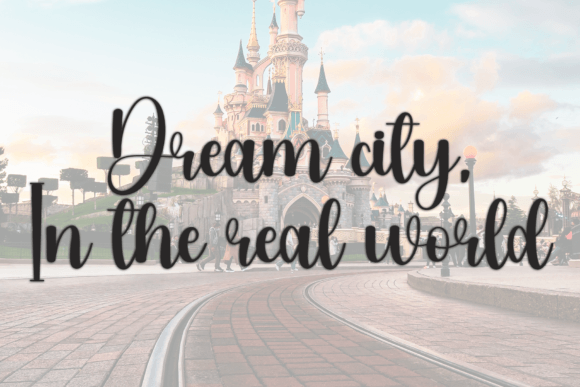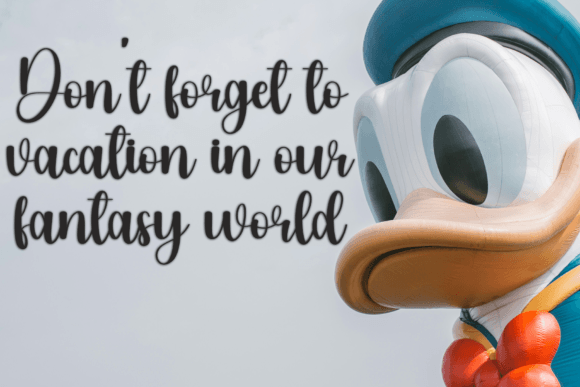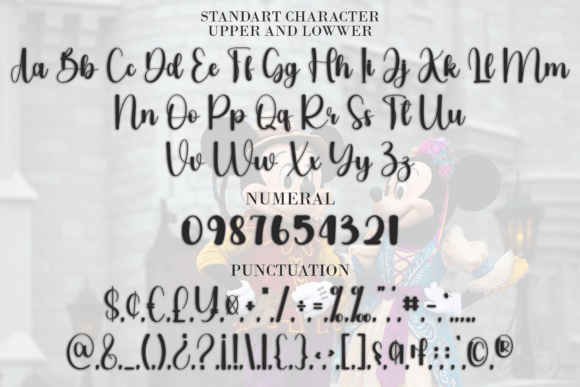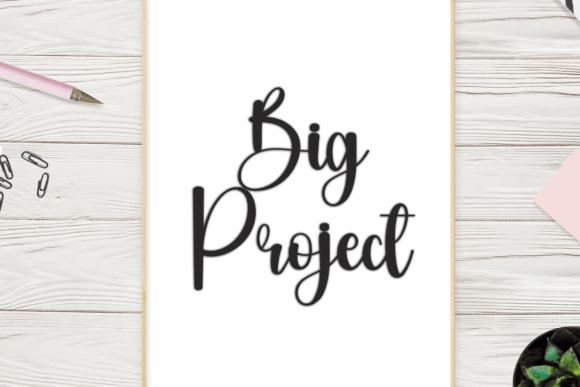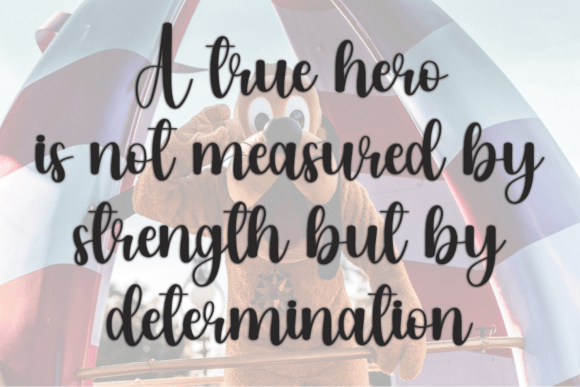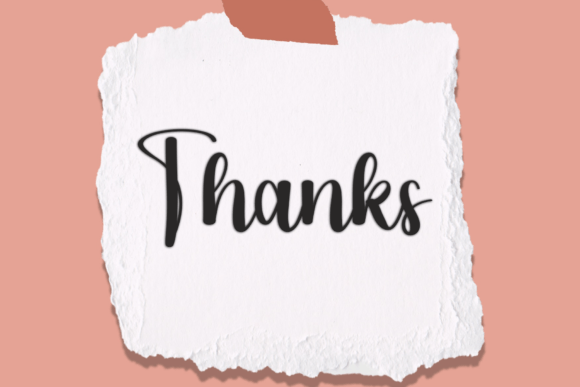
The Magical World of Book Disney Font: A Designer’s Delight
I’ll never forget the moment I stumbled upon the Book Disney font while working on a whimsical children’s book project. I had spent hours scouring the internet for the perfect font, but nothing seemed quite right. That was until I saw Book Disney – a sweet and friendly handwritten font that instantly captured the playful essence of my project. In this article, I’ll share my experience with Book Disney, its unique features, and how to make the most of it in your designs.
An Honest Review of Book Disney Font
What I Love About Book Disney ✨
• ✅ Its natural and unique style makes it incredibly versatile for various design projects.
• ✅ The font’s friendly and approachable feel is perfect for designs that require a personal touch.
• ✅ Book Disney’s handwritten style adds a touch of warmth and personality to any design.
• ⚠️ Book Disney’s uniqueness might not make it the best fit for very formal or traditional designs.
• ⚠️ Some users might find the font’s handwritten style a bit too casual for certain projects.
The Story Behind Book Disney Font
Book Disney was designed with the intention of creating a font that captures the magic and wonder of childhood. Its creator aimed to craft a font that is both friendly and approachable, making it perfect for designs that require a personal touch. Whether you’re working on a children’s book, a craft project, or a personal blog, Book Disney is sure to bring a smile to your audience’s faces.
What makes Book Disney font unique? Book Disney’s natural and unique handwritten style sets it apart from other fonts.
Is Book Disney suitable for digital designs? Absolutely! Book Disney’s clear and readable style makes it perfect for digital designs, such as websites and social media graphics.